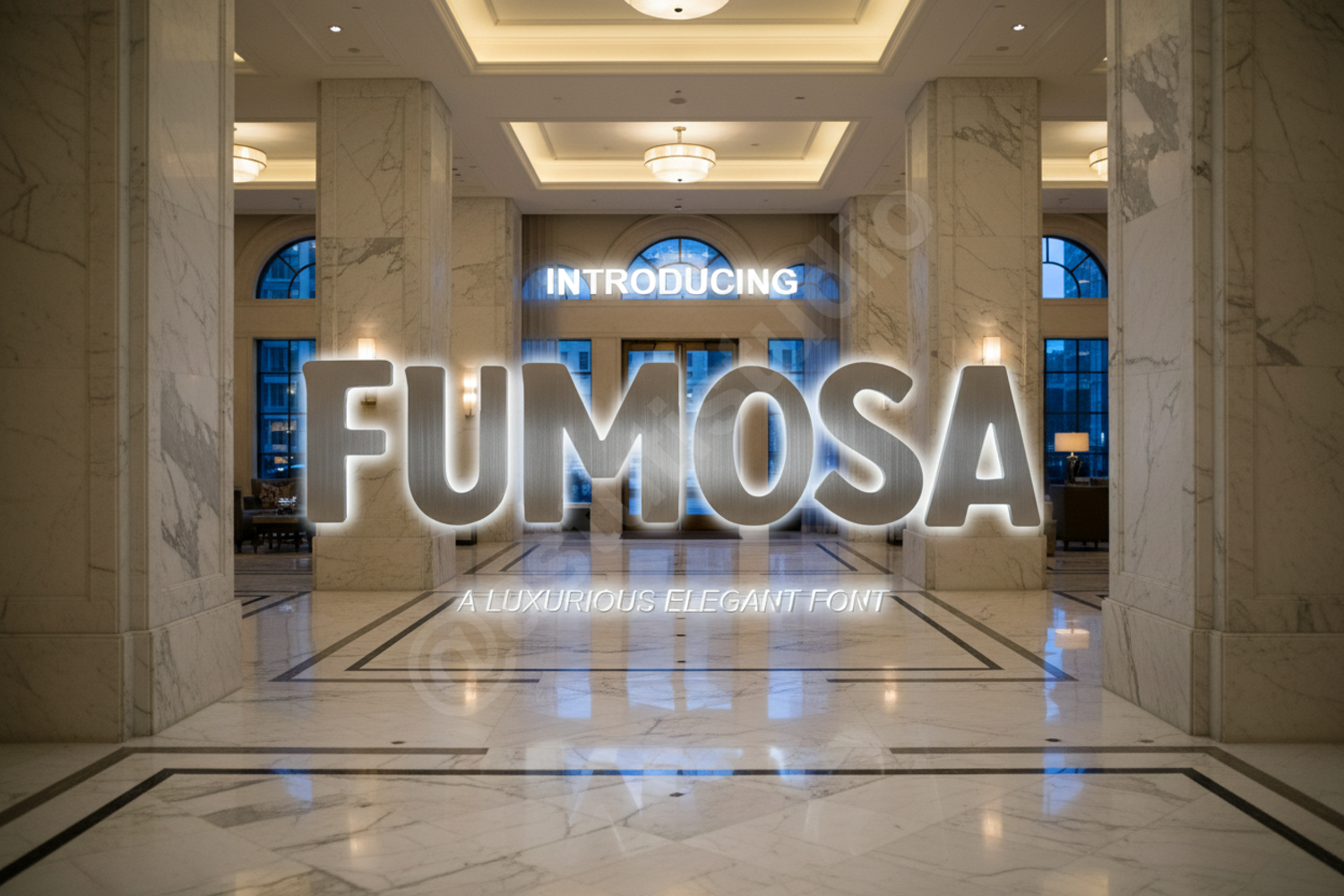
Fumosa - Elegant Modern Serif Display Font
Fumosa
Elevate your creative projects with Fumosa, a premium serif font designed for sophistication and timeless appeal. Fumosa blends classic proportions with modern design elements, making it a versatile choice for designers seeking a high-end look. Its clean lines and unique character shapes ensure your message stands out with clarity and grace.
- Full set of uppercase and lowercase letters
- Multilingual support
Optimized Use Cases:
- Professional Branding and Logo Design
- Elegant Wedding Invitations and Stationery
- High-end Editorial Layouts and Magazines
- Sophisticated Social Media Graphics
- Luxury Product Packaging